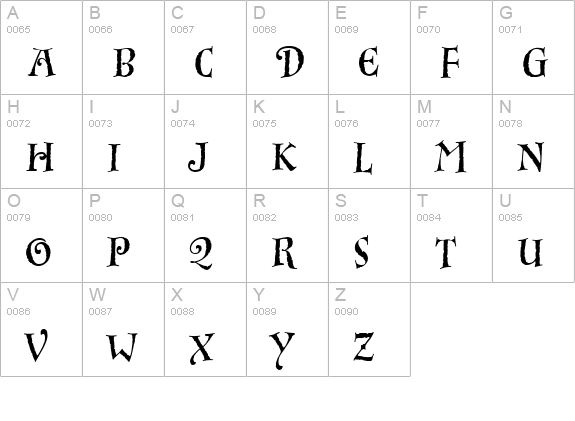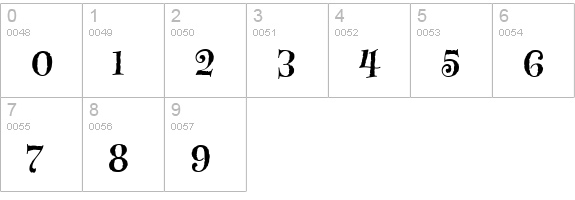
Introducing InkPot font, a stunning typeface that effortlessly combines elegance and creativity. With its distinctive hand-drawn strokes and intricate details, InkPot adds a touch of whimsy and charm to any design project. This versatile font is perfect for a wide range of applications, from logo designs and branding to invitations and social media graphics. Its unique character set includes a variety of decorative elements, allowing you to create truly one-of-a-kind designs that stand out from the crowd. But what truly sets InkPot apart is its accessibility. We believe that good design should be available to everyone, which is why InkPot is offered as a free download exclusively on FontsMarket.com. Yes, you heard that right – this incredible font is freely available to download and use in both personal and commercial projects. So whether you're a seasoned designer looking to add a fresh and playful touch to your work, or an aspiring artist in need of a versatile and eye-catching typeface, InkPot is the perfect choice. Don't miss out on this amazing opportunity to elevate your designs with a font that embodies creativity and accessibility. Download InkPot now, exclusively at FontsMarket.com.